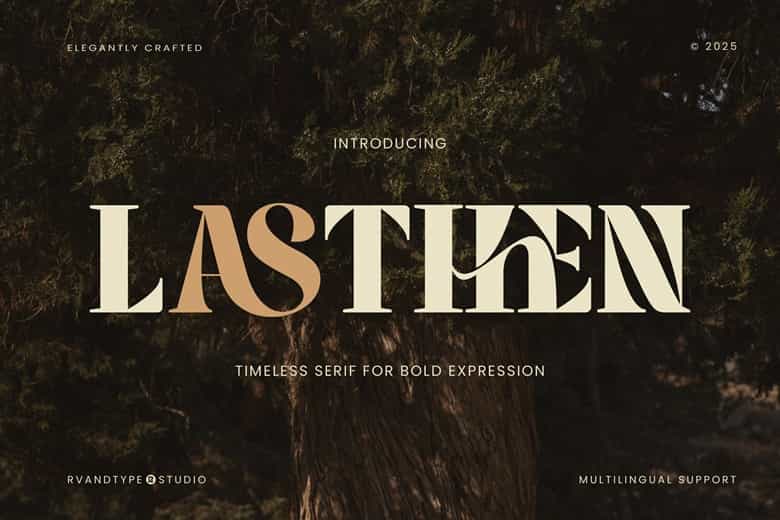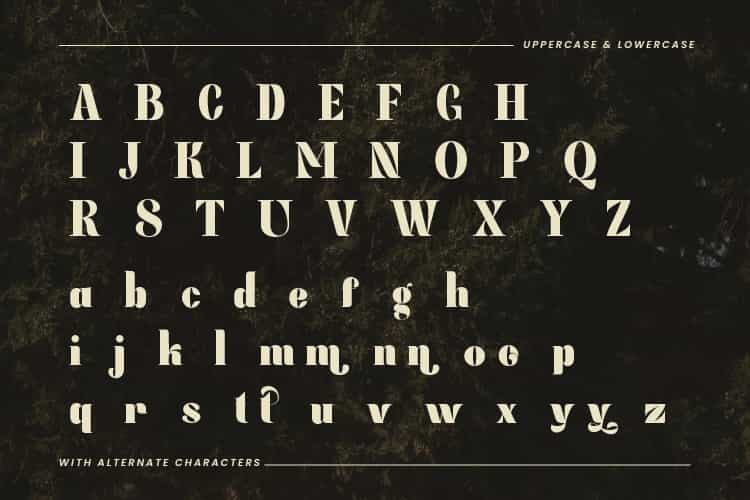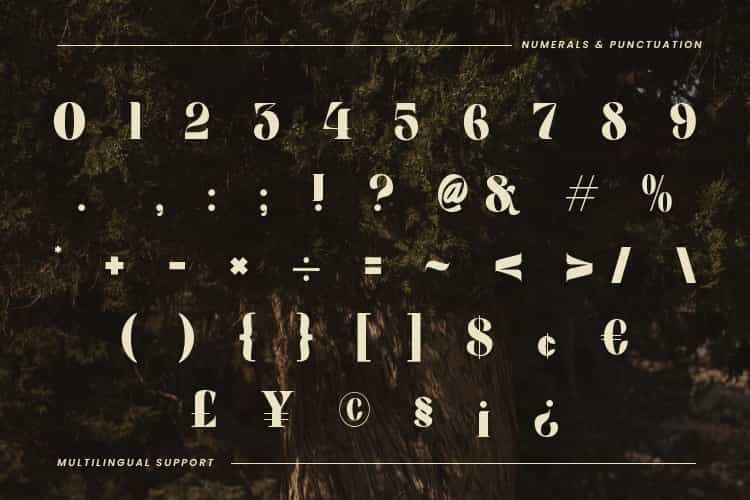
The designer introduces Lasthen which combines traditional serif font with innovative modern touch for a masterful result. Lasthen leads to refined nostalgic feelings through its unique letter designs and exaggerated stroke patterns as well as elegant ligature connections.